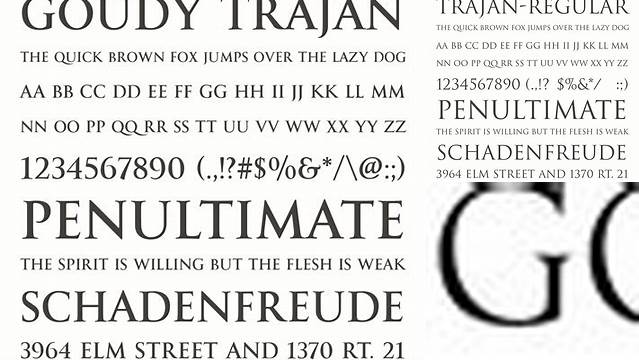
1. What is Goudy Trajan Regular Font?
Goudy Trajan Regular, guys, is a font that just screams classic elegance. It's based on the letterforms found on the Trajan Column in Rome, which dates back to 113 AD. Think about that for a second – we're talking about a typeface that draws inspiration from ancient Roman inscriptions! Designed by Frederic Goudy in 1930, this font is known for its timeless appeal and is often used in designs that need to convey a sense of history, sophistication, and authority. You'll see it in everything from movie posters and book covers to high-end branding and invitations. Its clean lines and balanced proportions make it incredibly versatile, whether you're working on a print project or a digital design. When you're aiming for a look that's both classic and impactful, Goudy Trajan Regular is definitely a font to consider. It’s the kind of font that elevates any project, giving it a touch of timeless class. Understanding its origins and applications helps you appreciate its true value and makes you a more discerning designer.
2. The History and Origin of Goudy Trajan
The history of Goudy Trajan, guys, is a fascinating journey back in time! This font, as we touched on earlier, draws its inspiration from the inscriptions on the Trajan Column in Rome, a monument that's been standing tall since 113 AD. Frederic Goudy, a renowned American typographer, designed this typeface in 1930, aiming to capture the elegance and grandeur of Roman letterforms. Goudy, a self-taught type designer, had a deep appreciation for historical scripts, and his creation of Goudy Trajan is a testament to his dedication to preserving classic typography. He meticulously studied the proportions and shapes of the letters on the Trajan Column, translating them into a typeface that could be used in modern printing. The result is a font that's not just visually stunning but also rich in history. Goudy Trajan quickly gained popularity for its timeless appeal, becoming a staple in designs that required a touch of sophistication and authority. Its history is a significant part of its charm, reminding us that good design often has roots in the past. Understanding this background can give you a deeper appreciation for the font and its enduring appeal.
3. Key Characteristics of Goudy Trajan Regular
So, what exactly makes Goudy Trajan Regular stand out, guys? Well, for starters, it's an all-caps font, which immediately gives it a sense of gravitas and formality. The letterforms are classically proportioned, with a balanced and harmonious structure that makes it incredibly easy on the eyes. The strokes are clean and precise, and there's a distinct absence of lowercase letters, which adds to its unique character. Think of it as the font equivalent of a tailored suit – sharp, elegant, and always in style. One of the key characteristics is its serifs, the little decorative strokes at the ends of the letterforms. In Goudy Trajan Regular, these serifs are quite pronounced, adding to its traditional and sophisticated look. The font also boasts excellent legibility, even at smaller sizes, which makes it versatile for a variety of applications. Whether you're designing a logo, a book cover, or a movie poster, Goudy Trajan Regular's key characteristics ensure that your message is conveyed with clarity and class. It’s these subtle details that make it a truly timeless typeface.
4. Common Uses of Goudy Trajan Font
You know, Goudy Trajan Regular is like that one friend who fits in everywhere, guys! Its versatility is seriously impressive. You'll often see it used in movie posters and book covers, especially for historical fiction or dramas, where its classic look can really shine. Think epic tales and grand narratives – Goudy Trajan Regular is often the go-to choice. But it's not just for the silver screen and bookshelves; this font is also a favorite in the branding world, particularly for high-end brands and luxury products. Its air of sophistication makes it perfect for logos, stationery, and marketing materials that aim to convey elegance and prestige. Invitations, especially for weddings or formal events, are another common application. The font adds a touch of timeless romance and formality that's hard to beat. Its clean lines and balanced proportions also make it suitable for editorial design, headings, and signage. Basically, anytime you need a font that commands attention and exudes class, Goudy Trajan Regular is a solid choice. It’s this wide range of applications that makes it such a valuable asset for any designer.
8. How to Identify Goudy Trajan Regular Font
Ever been in that situation where you see a font and think, “Wow, I need to know what that is!”, guys? Identifying fonts can be a super useful skill for any designer. When it comes to Goudy Trajan Regular, there are a few key characteristics that can help you spot it in the wild. First off, remember it’s an all-caps font, so you won't see any lowercase letters. This is a major giveaway. The serifs – those little feet at the end of the strokes – are also quite distinctive. They're strong and well-defined, contributing to the font's classic and authoritative look. Another thing to look for is the overall proportions of the letters. Goudy Trajan Regular has a balanced and harmonious feel, with letters that are neither too wide nor too narrow. If you're still not sure, there are some handy online tools that can help you identify fonts. Sites like WhatTheFont and Font Matcherator allow you to upload an image of the font, and they'll do their best to match it. These tools are lifesavers when you're trying to identify a font from a logo or a poster. With a little practice and these helpful resources, you'll be identifying Goudy Trajan Regular and other fonts like a pro in no time!
14. Goudy Trajan Regular Font Variations
You know, guys, Goudy Trajan Regular is fantastic on its own, but sometimes you might want to explore different variations to add a little extra flair to your designs. While the original Goudy Trajan Regular is an all-caps font, there are some related typefaces and variations that offer additional options. One thing to clarify is that there isn't a single official